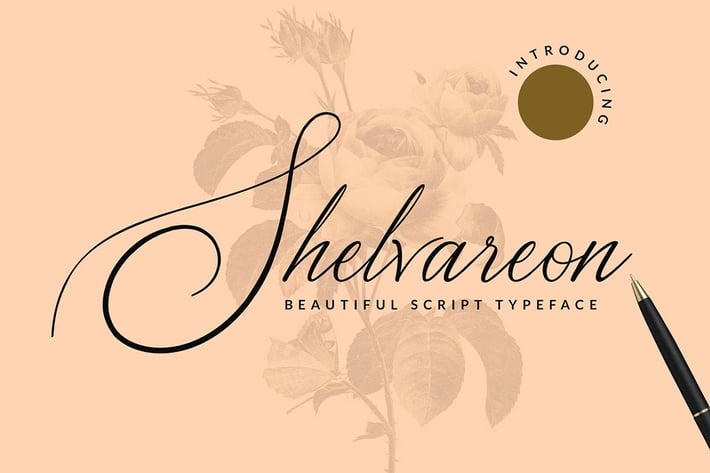
Shelvareon Font
Introducing, Shelvareon Script a typeface inspired by a classic style script. This type of font is perfectly made to be applied especially in logo, and the other various formal forms such as invitations, labels, logos, magazines, books, greeting/wedding cards, packaging, fashion, makeup, stationery, novels, labels, or any type of advertising purpose.